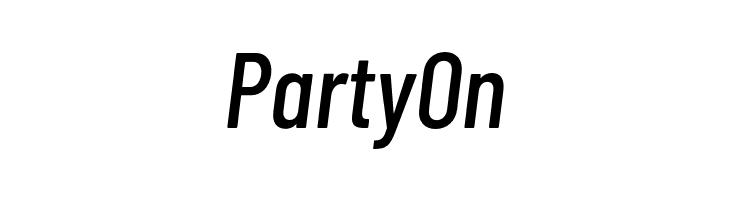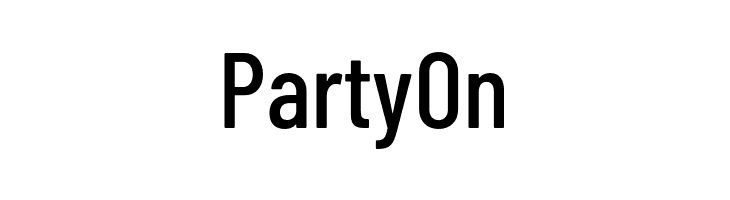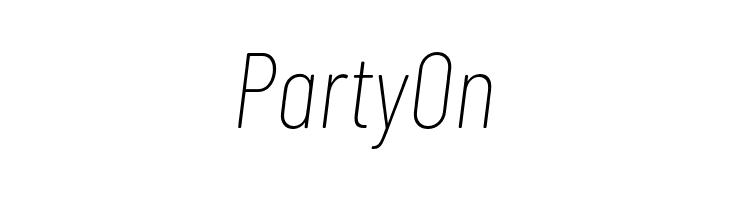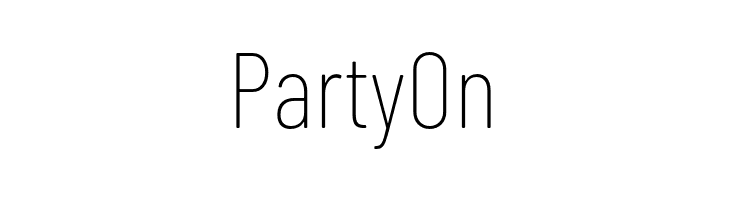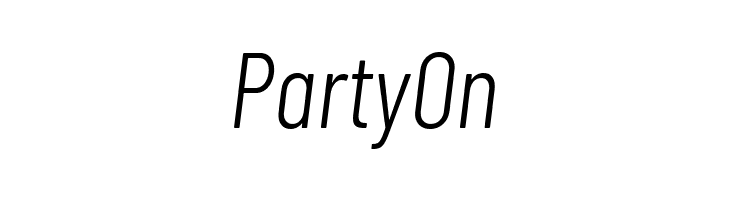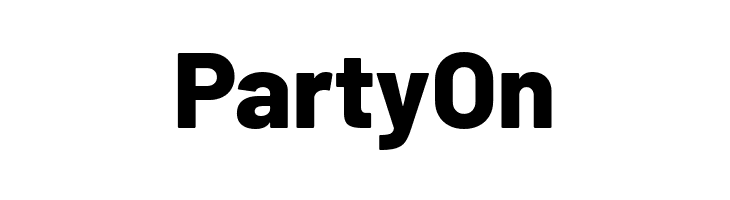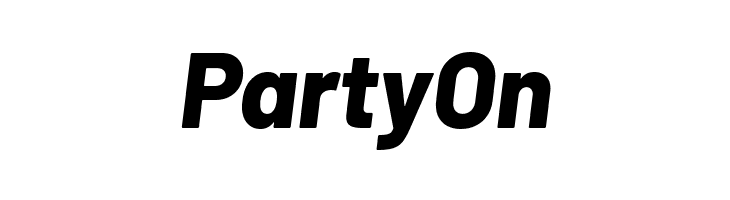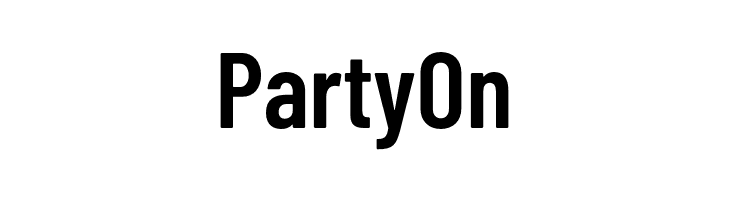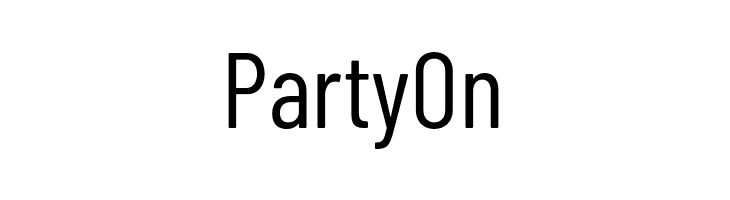
A modern, condensed, light italic font with a sleek and elegant style.
A modern, condensed sans-serif font with medium weight and low contrast.
A modern, condensed italic font with medium weight and consistent stroke width.
A modern, condensed typeface with low contrast and geometric style.
A modern, bold, and condensed sans-serif font with excellent readability.
A modern, condensed, semi-bold italic font with clean lines and tight spacing.
A modern, thin, and condensed sans-serif font with a sleek design.
A modern, condensed, thin italic font with high contrast and sleek design.
A bold, modern sans-serif typeface with a geometric structure.
A bold, italic typeface with a modern and dynamic style.